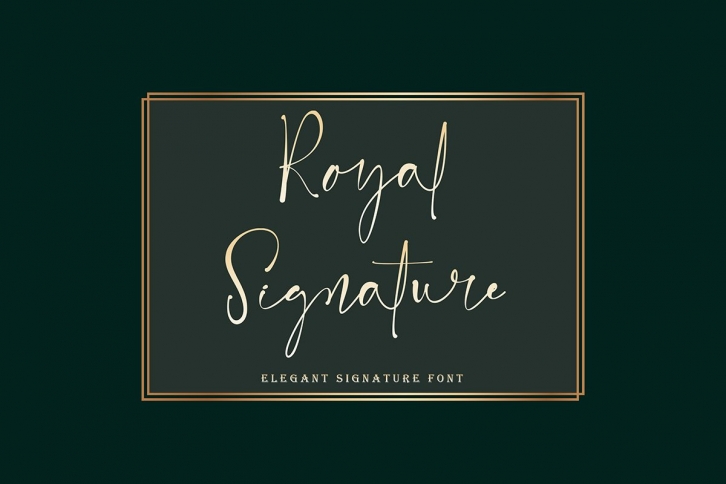
Royal Signature is a gorgeous font that was realeased on April 19, 2021. The font can be used in many style contexts and design environments. Perfect for invitations, magazines, websites, logos, and more! It was designed by yogaletter6 and the file size is 21.47 MB. Thanks for checking out this font!